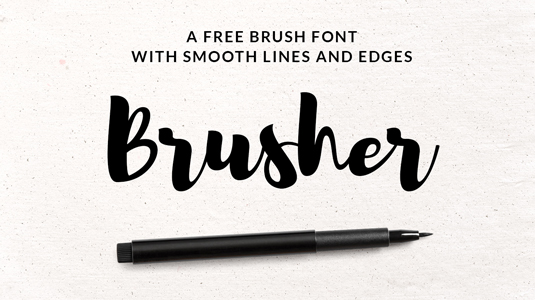
Font of the day: Brusher
Every day we showcase the best fonts on the web. Today it's Brusher by Vlad Cristea and Raul Taciu, which is free to download.
Brusher by Vlad Cristea and Raul Taciu
Today's typeface of choice, Brusher, was created by graphic designers Vlad Cristea and Raul Taciu. A bold and modern brush-lettered font, Brusher includes 100 glyphs crafted with precise strokes and smooth lines to give your text a natural, hand-drawn look.